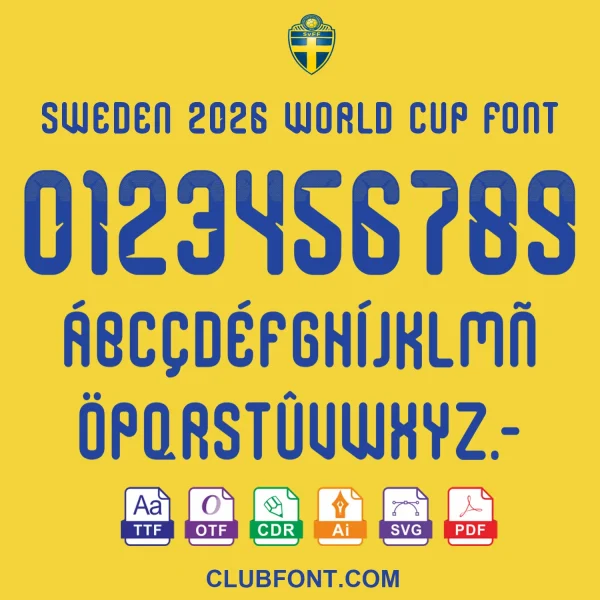
Are you ready for the biggest stage in international football? Whether you are a die-hard supporter, a graphic designer, or a DIY crafting enthusiast, our Sweden 2026 World Cup Font is your essential toolkit for celebrating the Swedish National Team. Inspired by the aesthetics of the upcoming tournament, this digital download provides everything you need to create authentic, high-energy designs that capture the pride of Sweden.
This font isn’t just for jerseys! Its bold, athletic structure makes it ideal for a wide range of applications:
Our design team has meticulously crafted this typeface to reflect the modern, dynamic look expected at the FIFA World Cup 2026 in North America. While inspired by the official tournament vibes, this is a fan-made digital asset created for personal and commercial crafting use. Please note: This product is not affiliated with or endorsed by FIFA or the Swedish Football Association (SvFF).